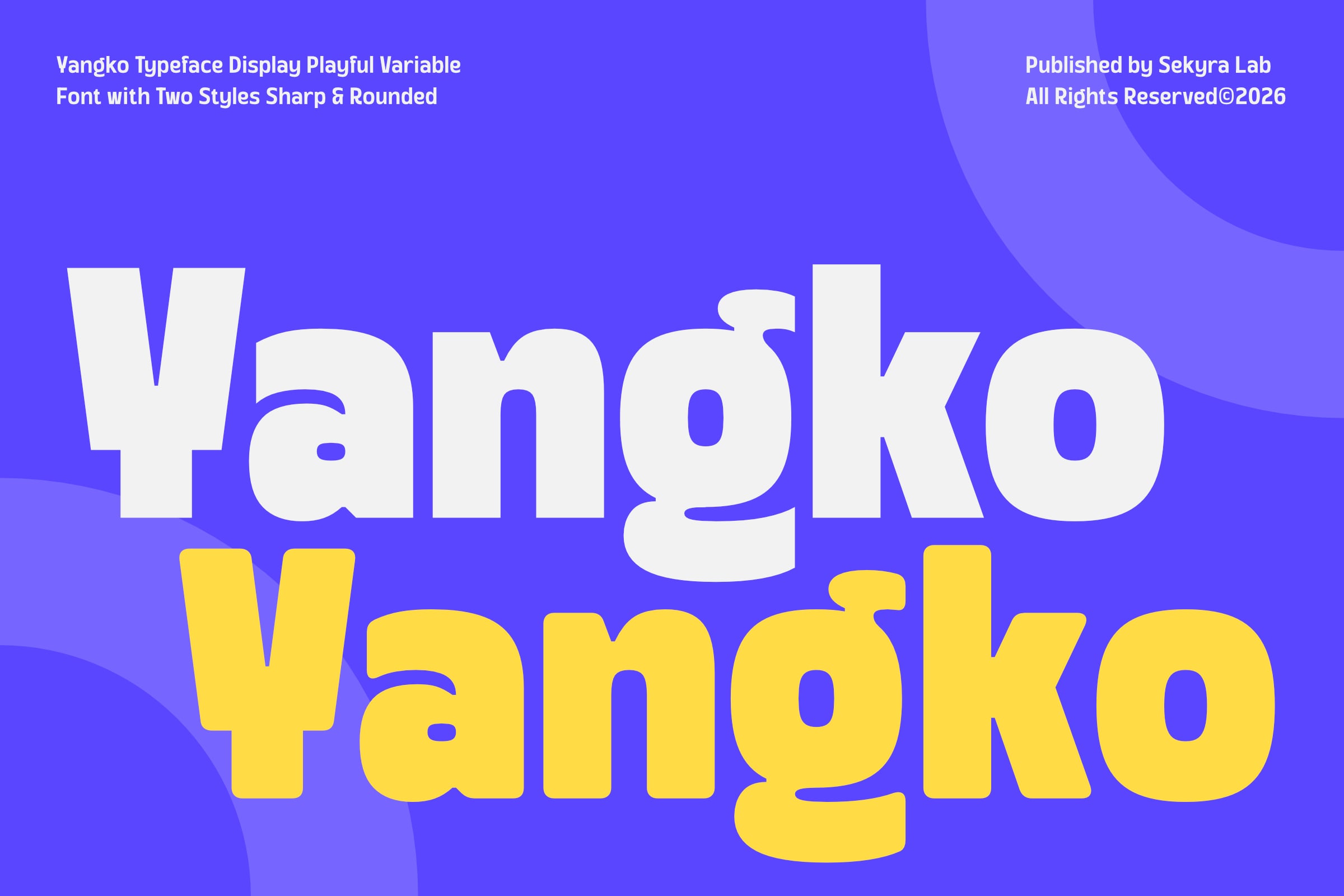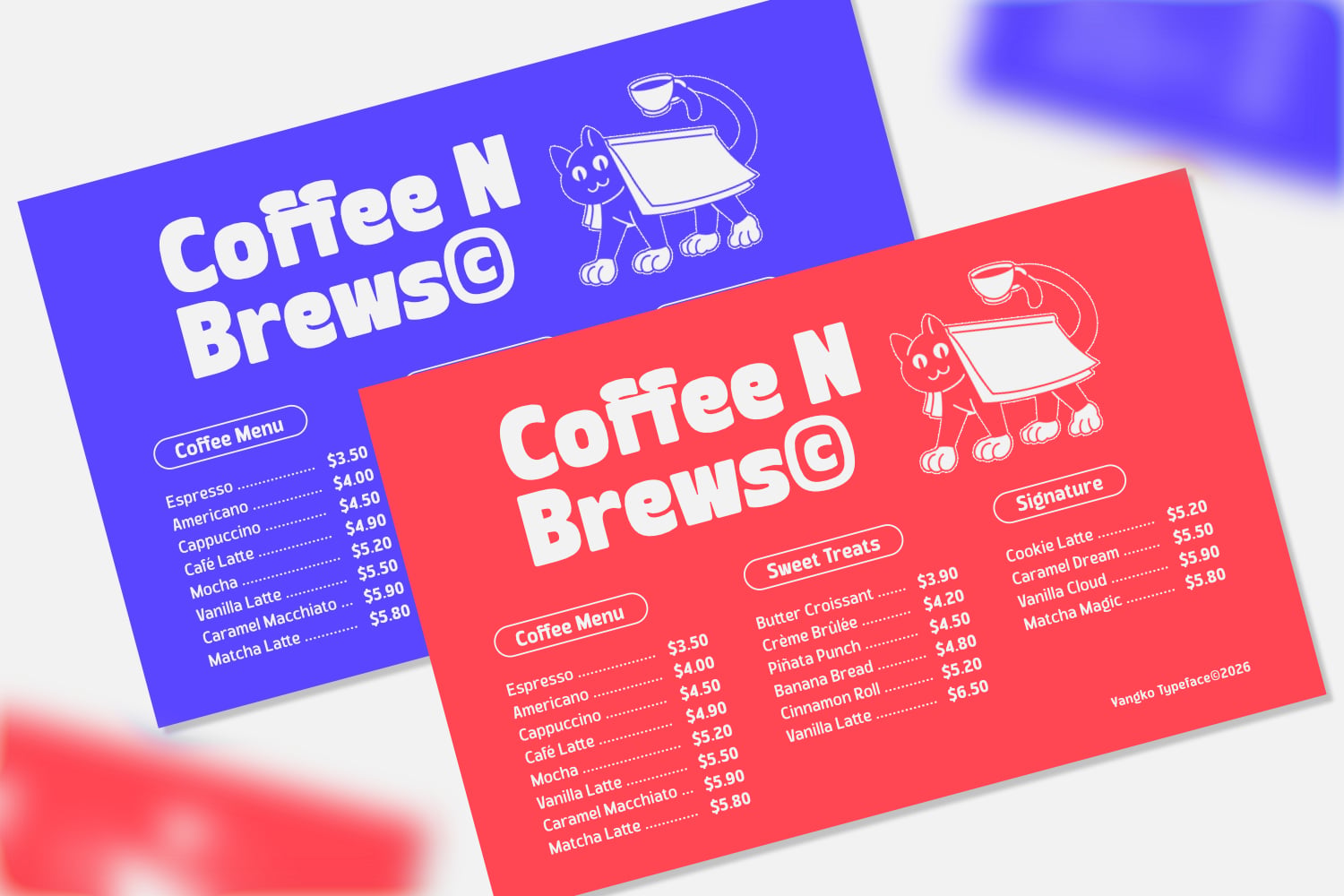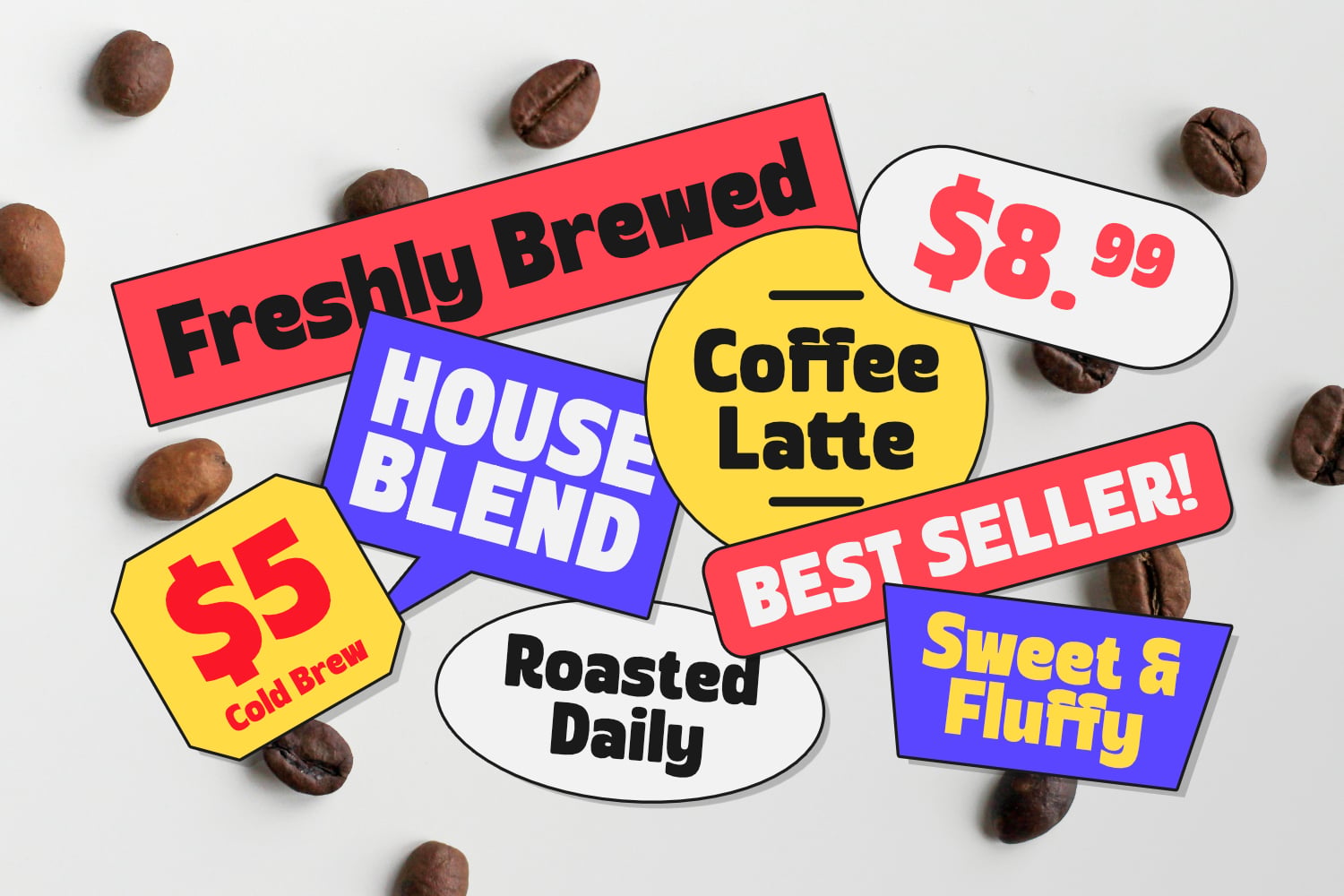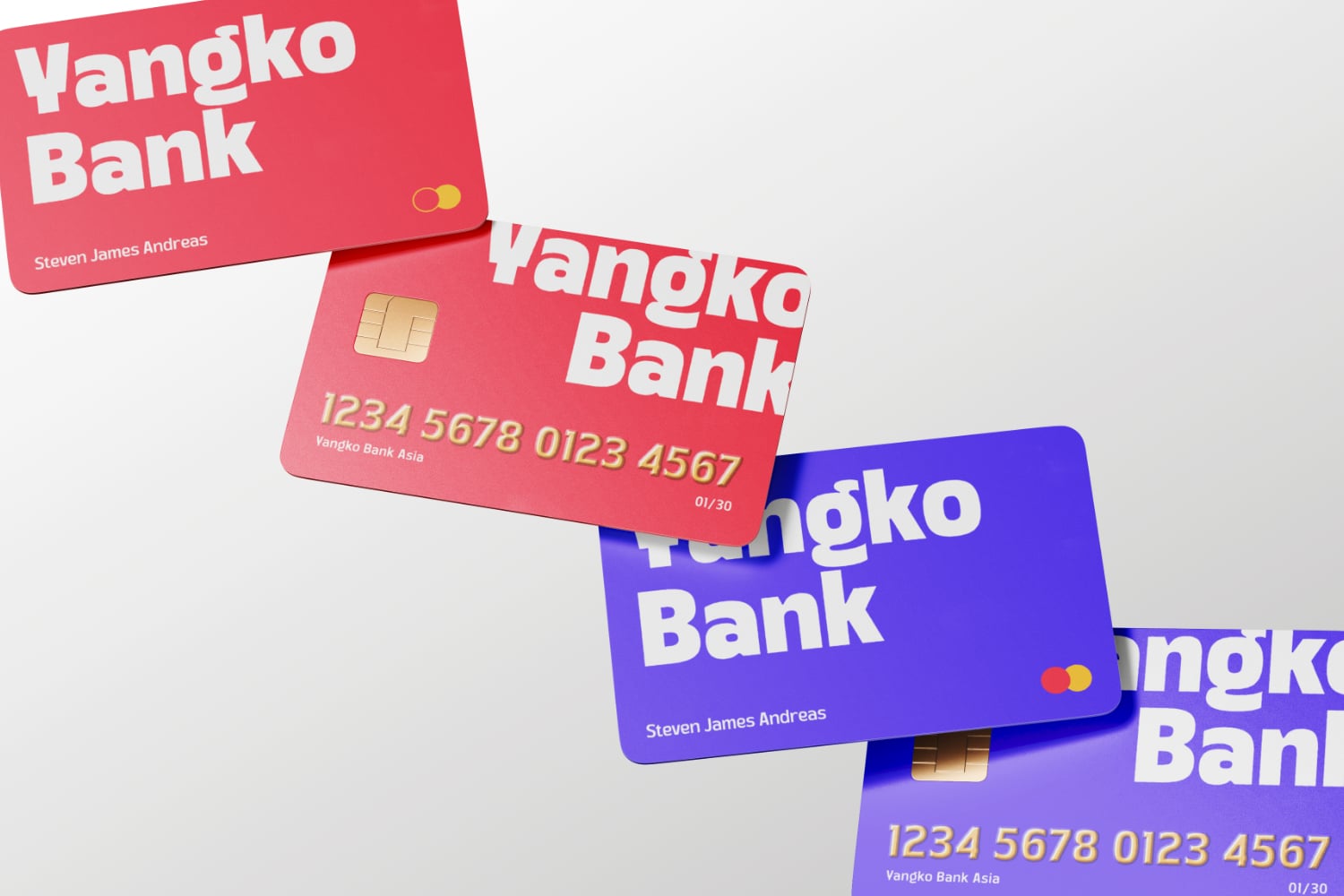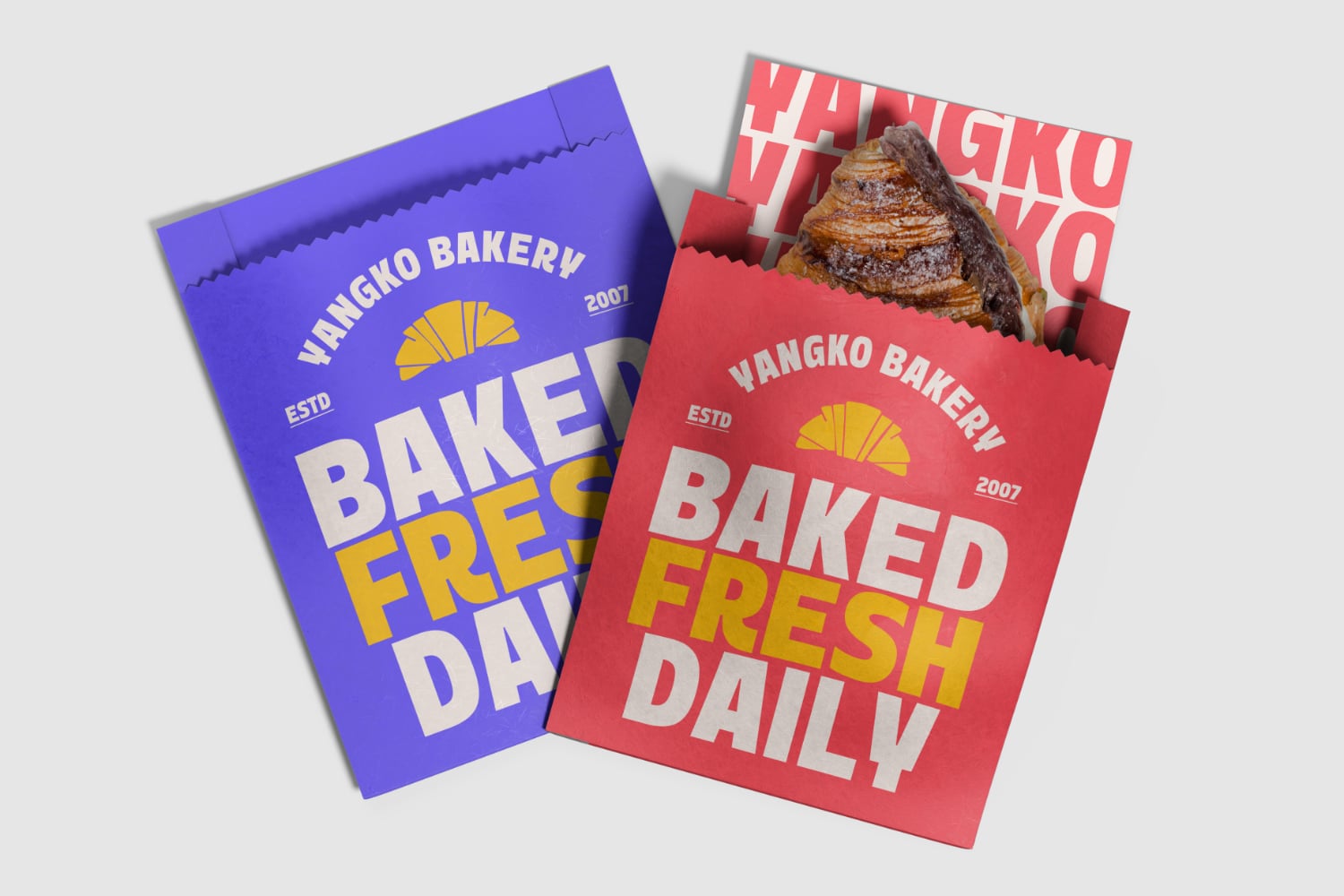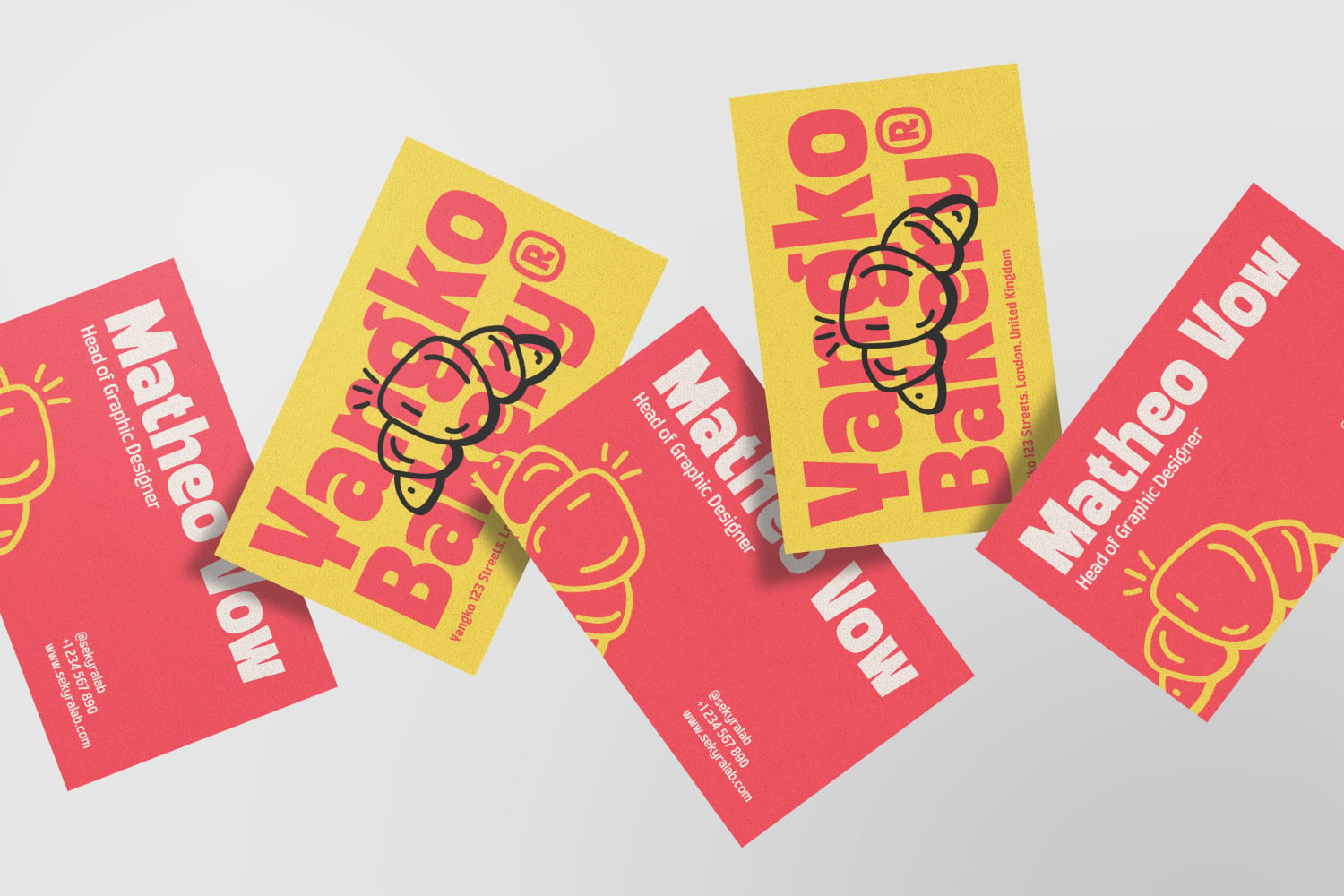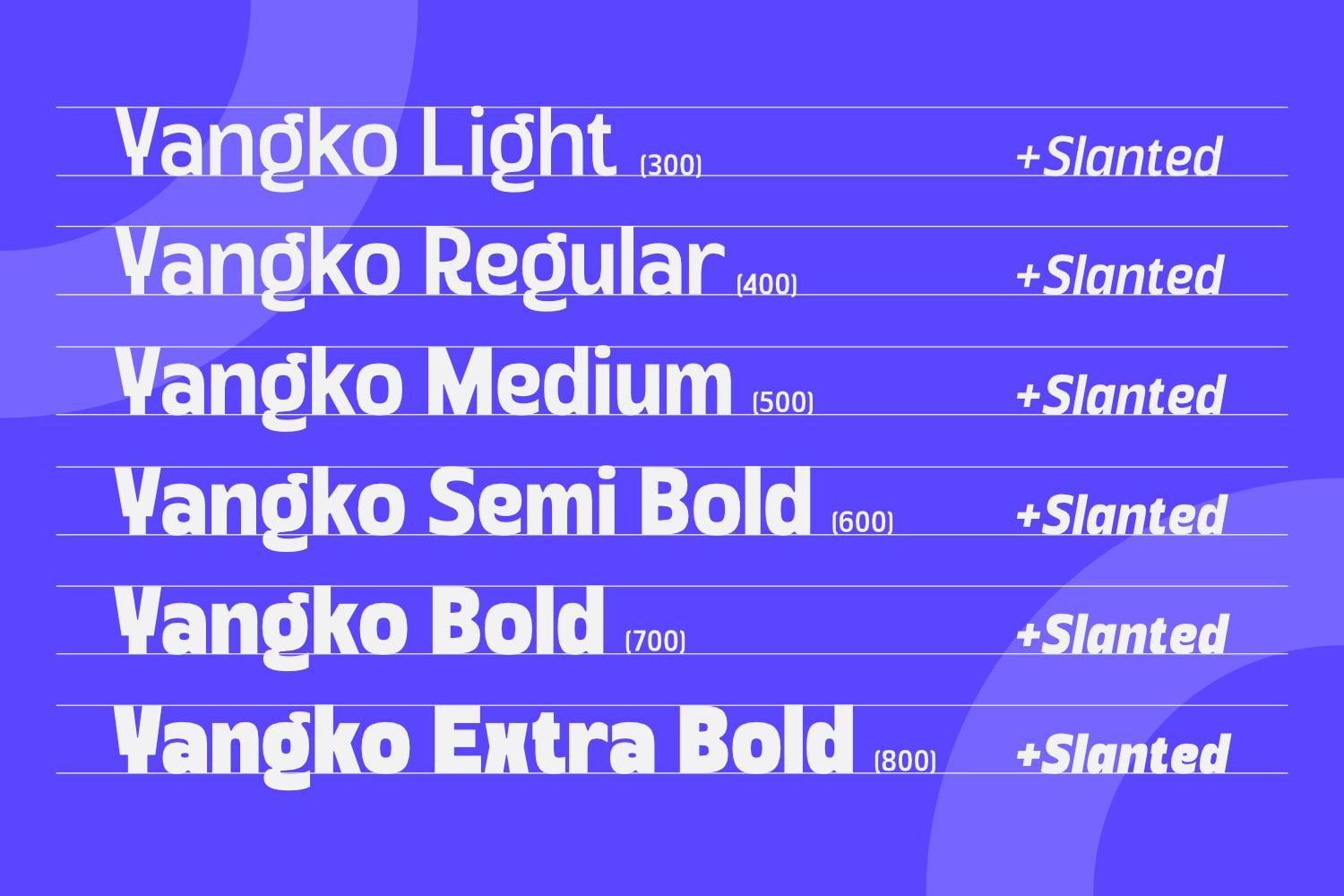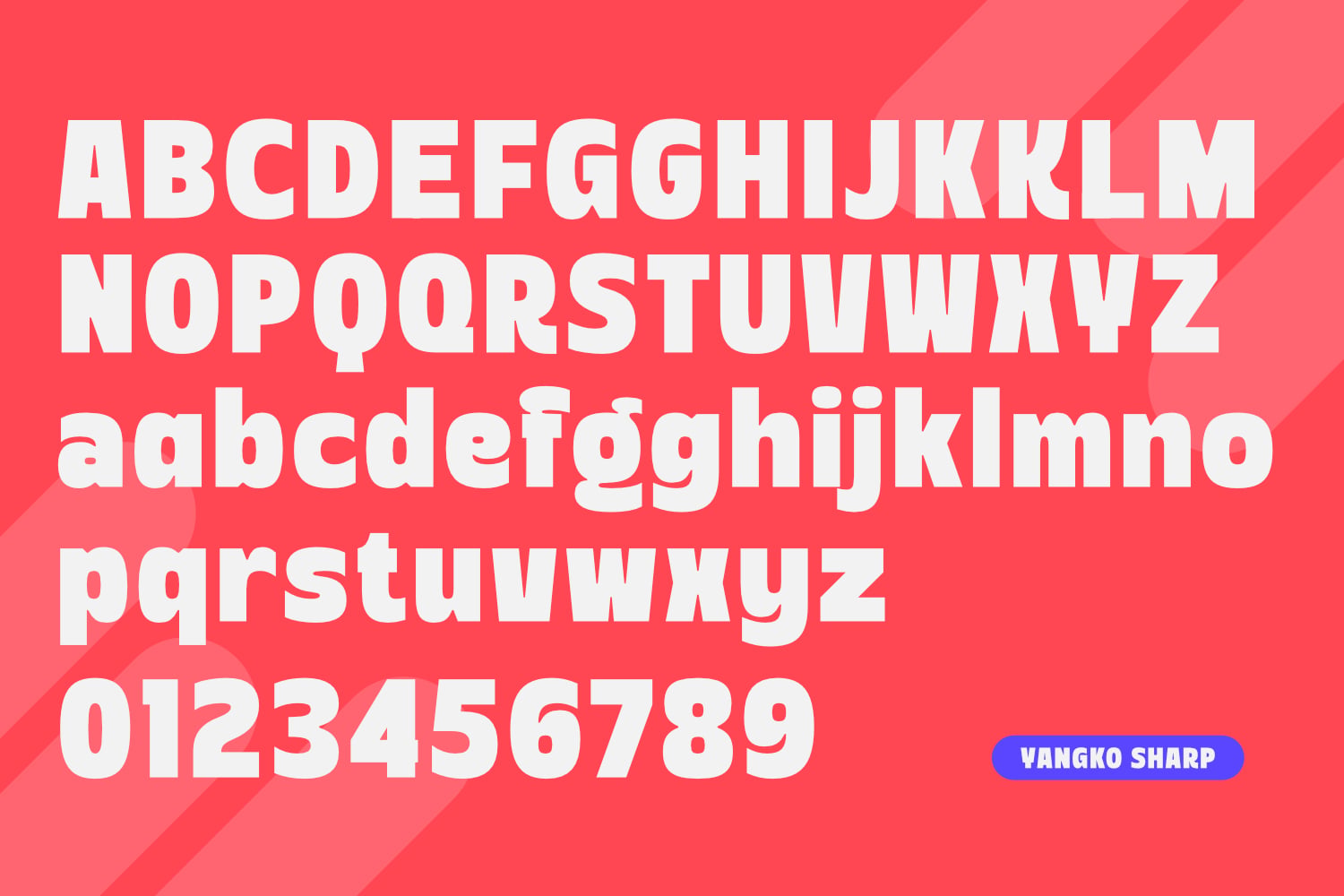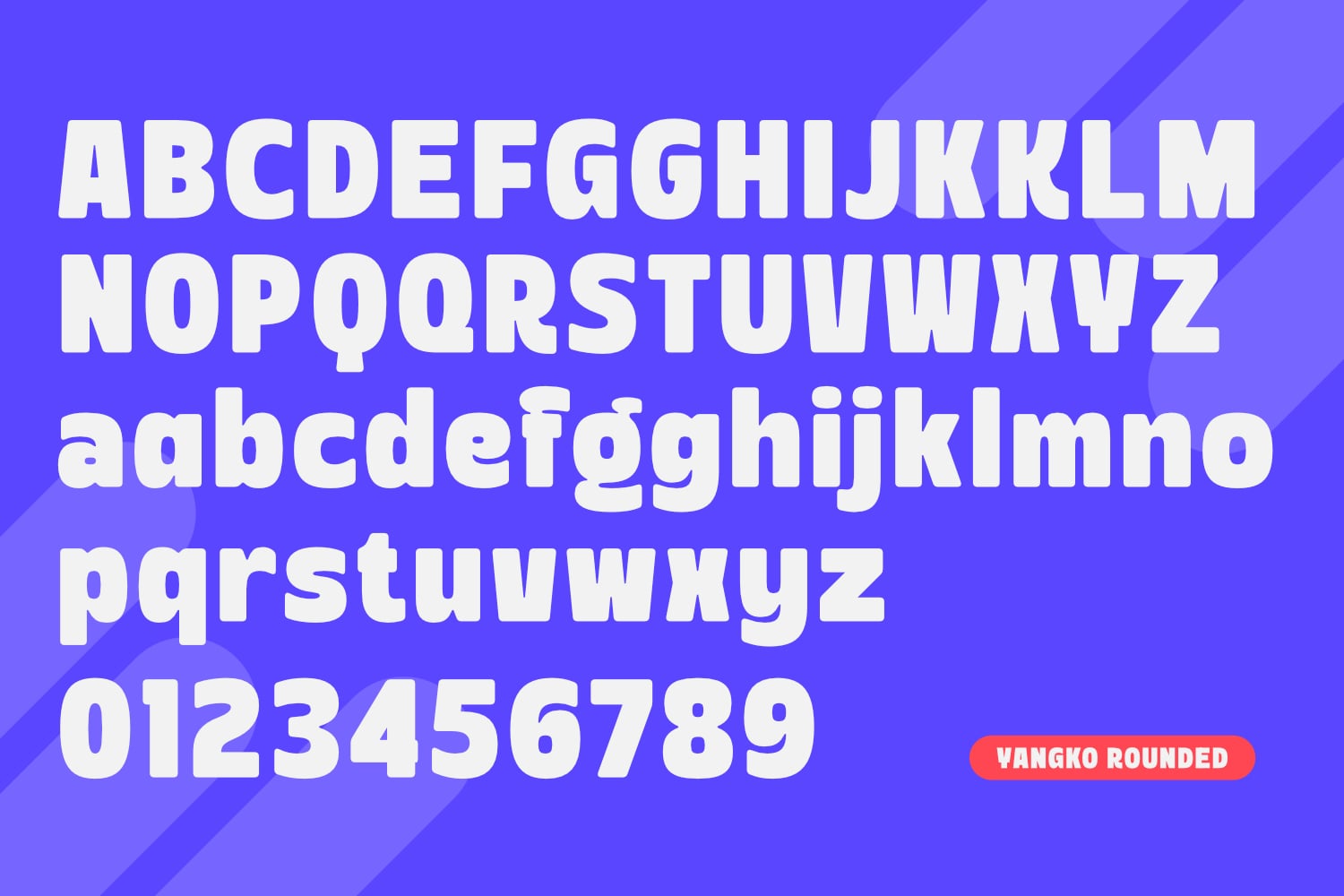
Yangko VF
Yangko Font
Yangko is a bold and playful display font family designed to bring energy, friendliness, and character to your creative projects. Featuring a unique blend..of soft curves and confident geometric forms, Yangko offers a highly versatile typographic system that works beautifully across branding, packaging, advertising, social media, editorial headlines, and promotional graphics.
This family includes both Sharp and Rounded styles, allowing designers to switch between a more dynamic personality and a softer, approachable appearance while maintaining visual consistency. With multiple weights and oblique styles, Yangko provides flexibility for creating expressive typography with strong visual impact.
Yangko Family Includes:
(Light, Regular, Medium, Semi Bold, Bold, Extra Bold)
Available in: (Regular, Oblique, Rounded, Rounded Oblique)
Perfect for food branding, beverage packaging, children's products, creative agencies, retail promotions, posters, event graphics, product labels, menus, signage, and modern marketing materials.
Features:
Multilingual Support
6 Weights, 4 Styles (Regular, Oblique, Rounded, Rounded Oblique)
Yangko Font